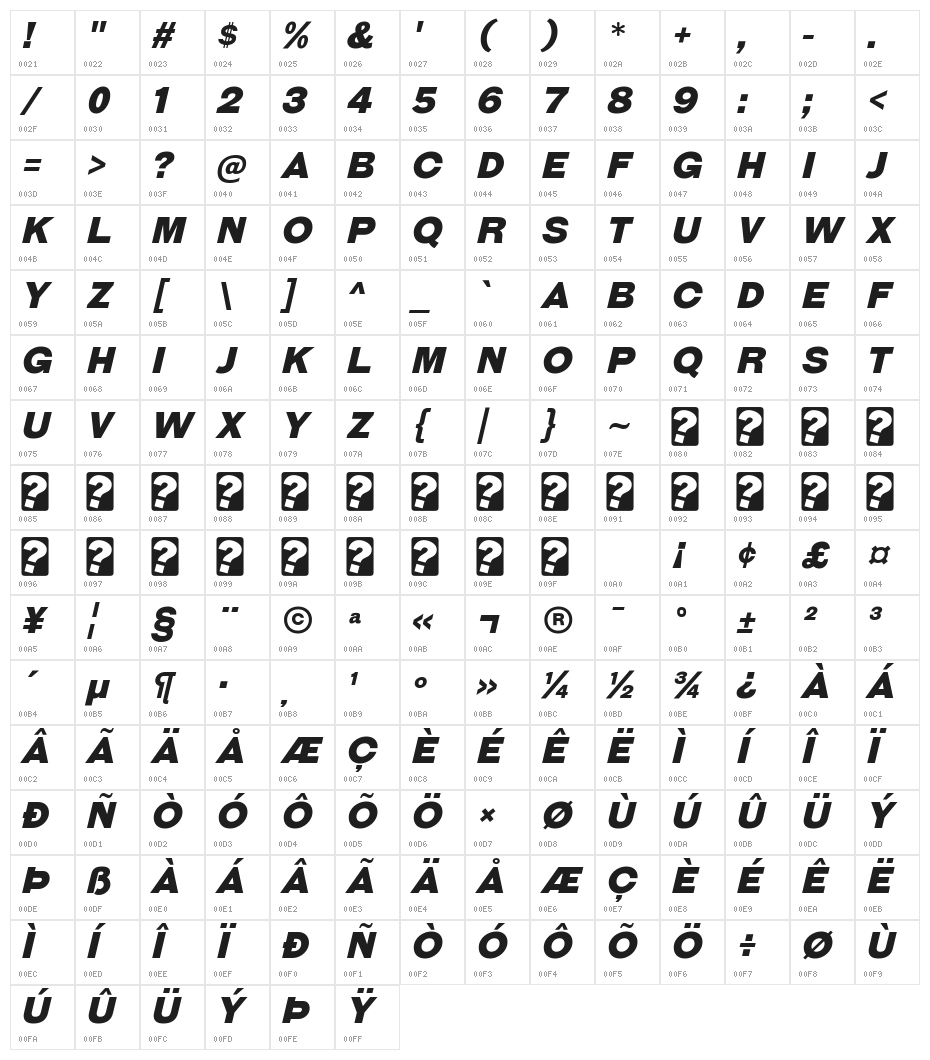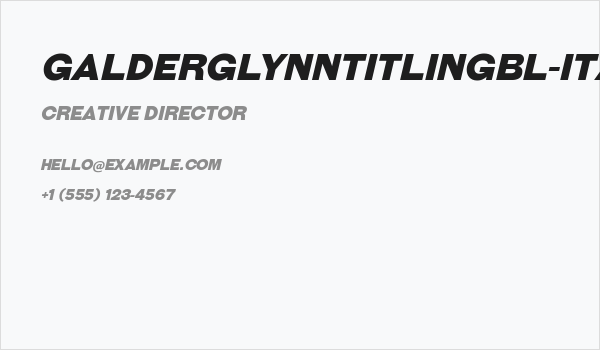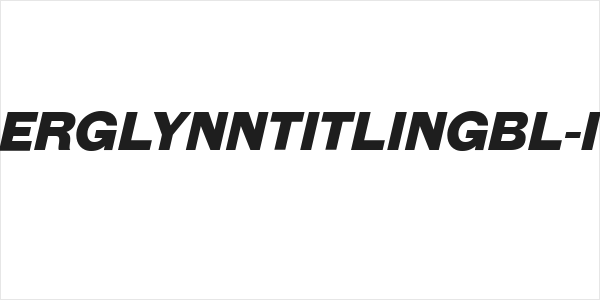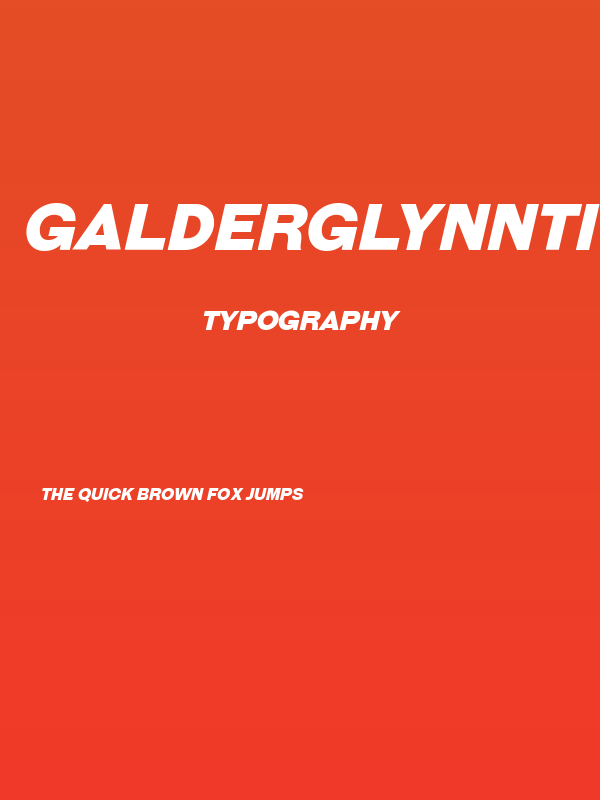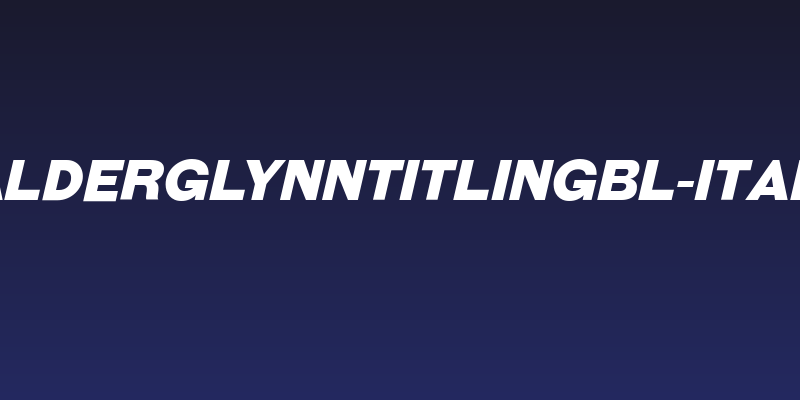
GalderglynnTitlingBl-Italic Font
GalderglynnTitlingBl-Italic Description
This font exhibits a bold and dynamic style, characterized by its strong italic slant and thick strokes. The uppercase and lowercase letters are designed with a consistent weight, providing a sense of uniformity and strength. The numerals are equally bold, ensuring visibility and impact. Special characters are crafted with the same boldness, making them stand out effectively. The overall design is modern and assertive, suitable for making a statement in any design project.
| Use Case | Headlines, Logos, Advertising |
| Proposed Projects | Ideal for headlines, branding, advertising, and any project requiring a bold, impactful typeface. |